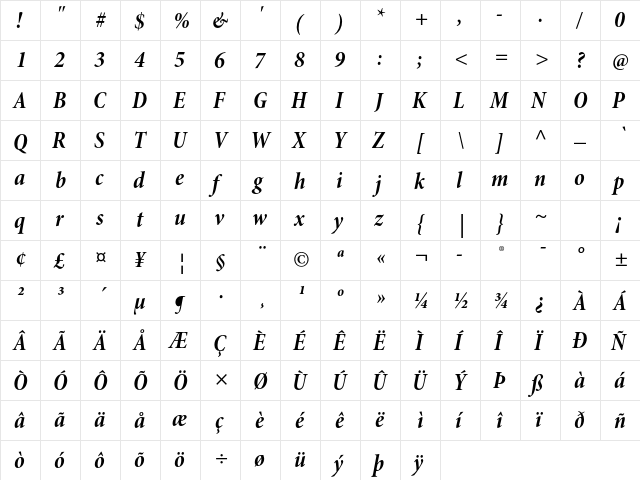
Minion Pro Bold Cond Italic Subhead Font Preview
| Designer | Robert Slimbach |
Design Context for Minion Pro Typeface
Minion Pro is a composed and adaptable typeface that performs quietly and consistently across a wide range of design contexts. The dynamic lean of this cut emphasises speed and emphasis in any layout. The heavy weight commands attention and anchors typographic hierarchies. Its narrow stance lets it pack a punch even in space-constrained designs.
Pro Tip: Try Minion Pro for annotation and caption copy alongside an upright companion — the contrast in angle creates a dynamic but ordered typographic system.